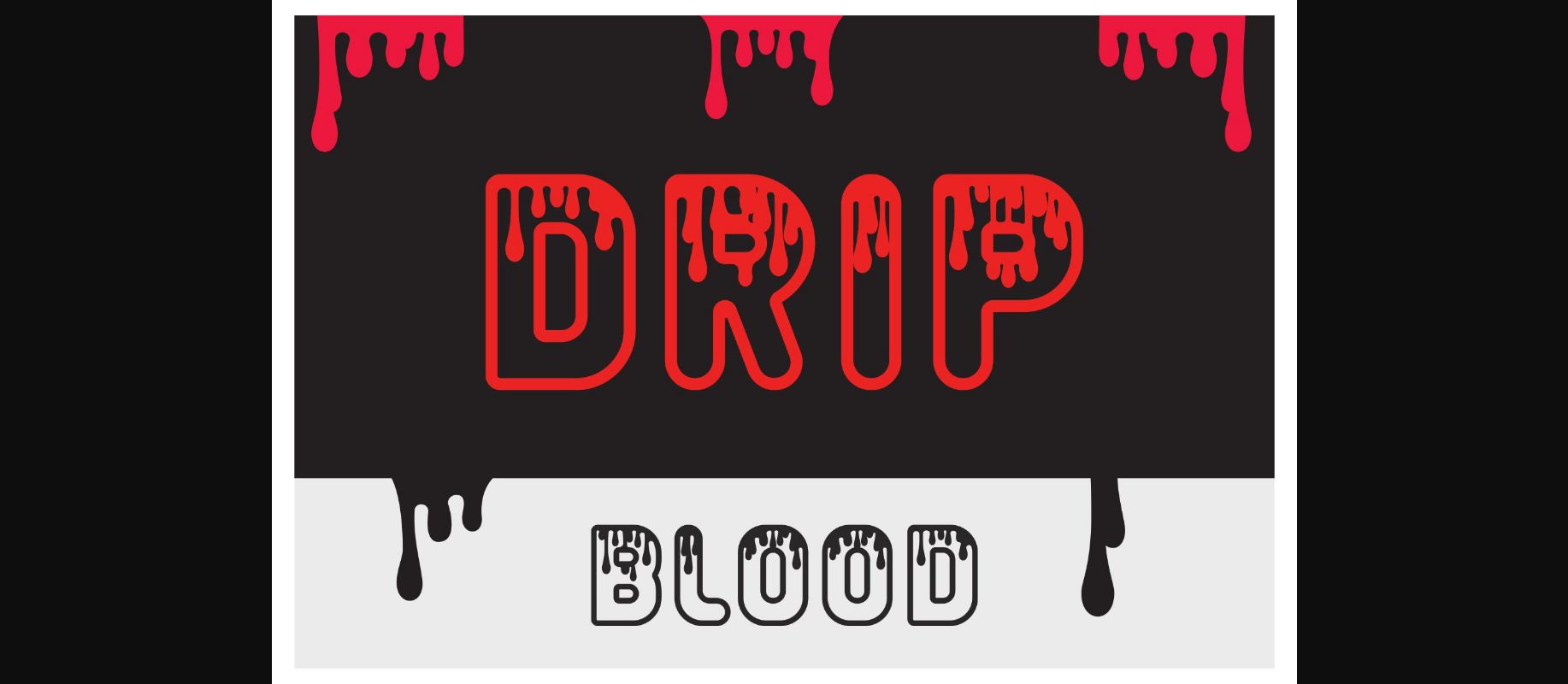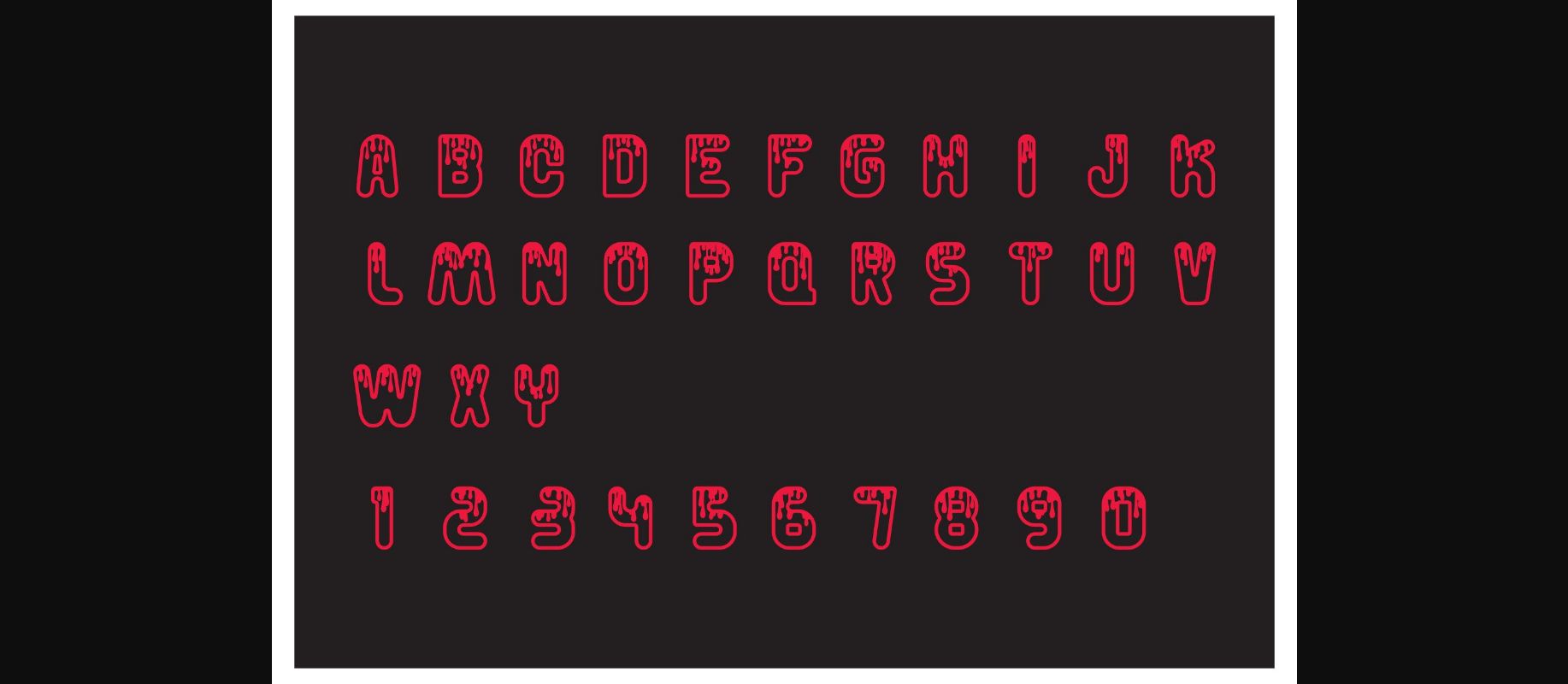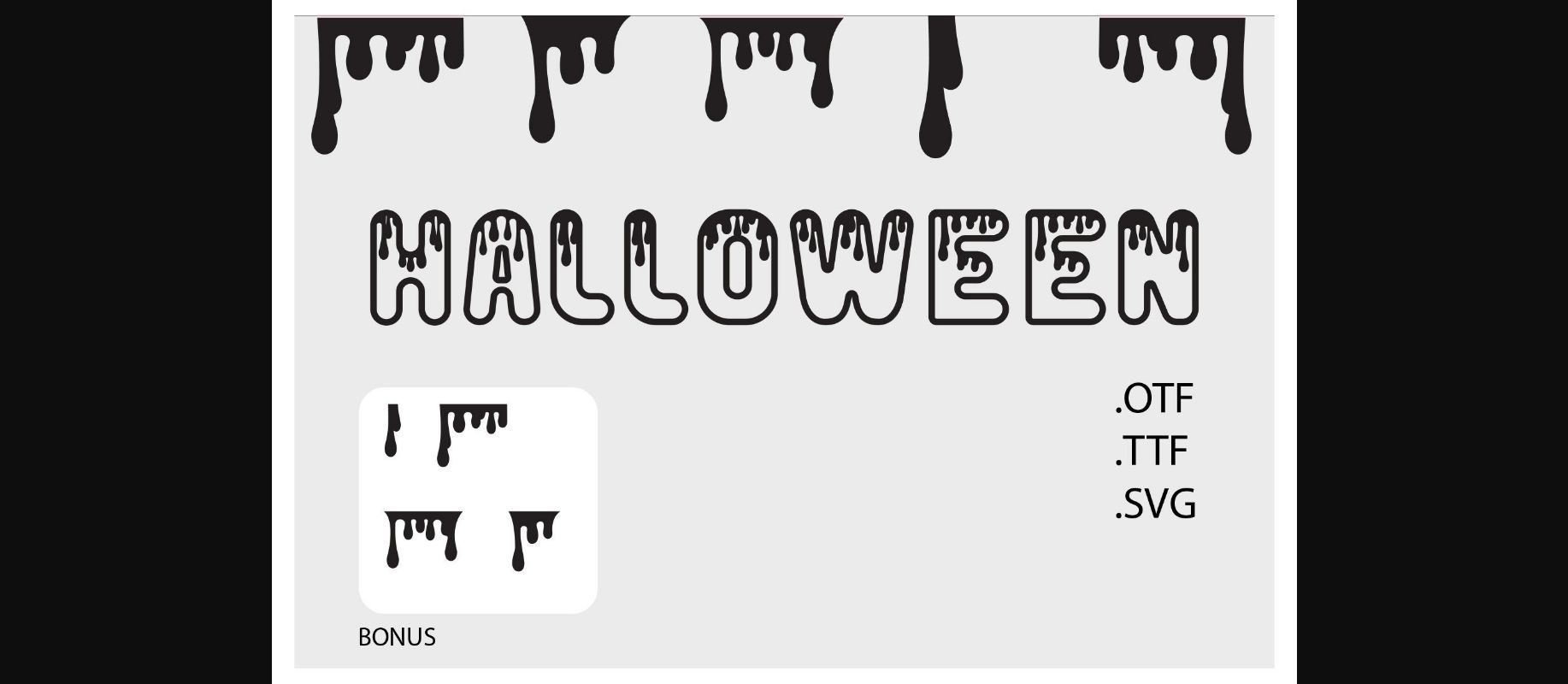
Drip is an incredibly cool and original decorative font. This spooky look will appeal to a wide range of crafty ideas, from letterheads and titles to stationery.